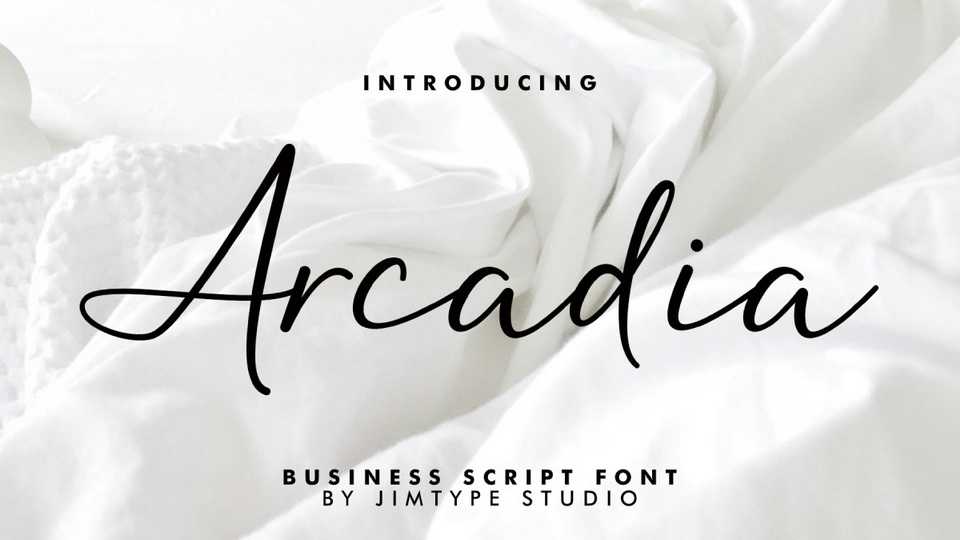
Download Arcadia font, a new script typeface that comes very elegant and classy to enhance your branding. With very smooth curves and silky smooth edges.